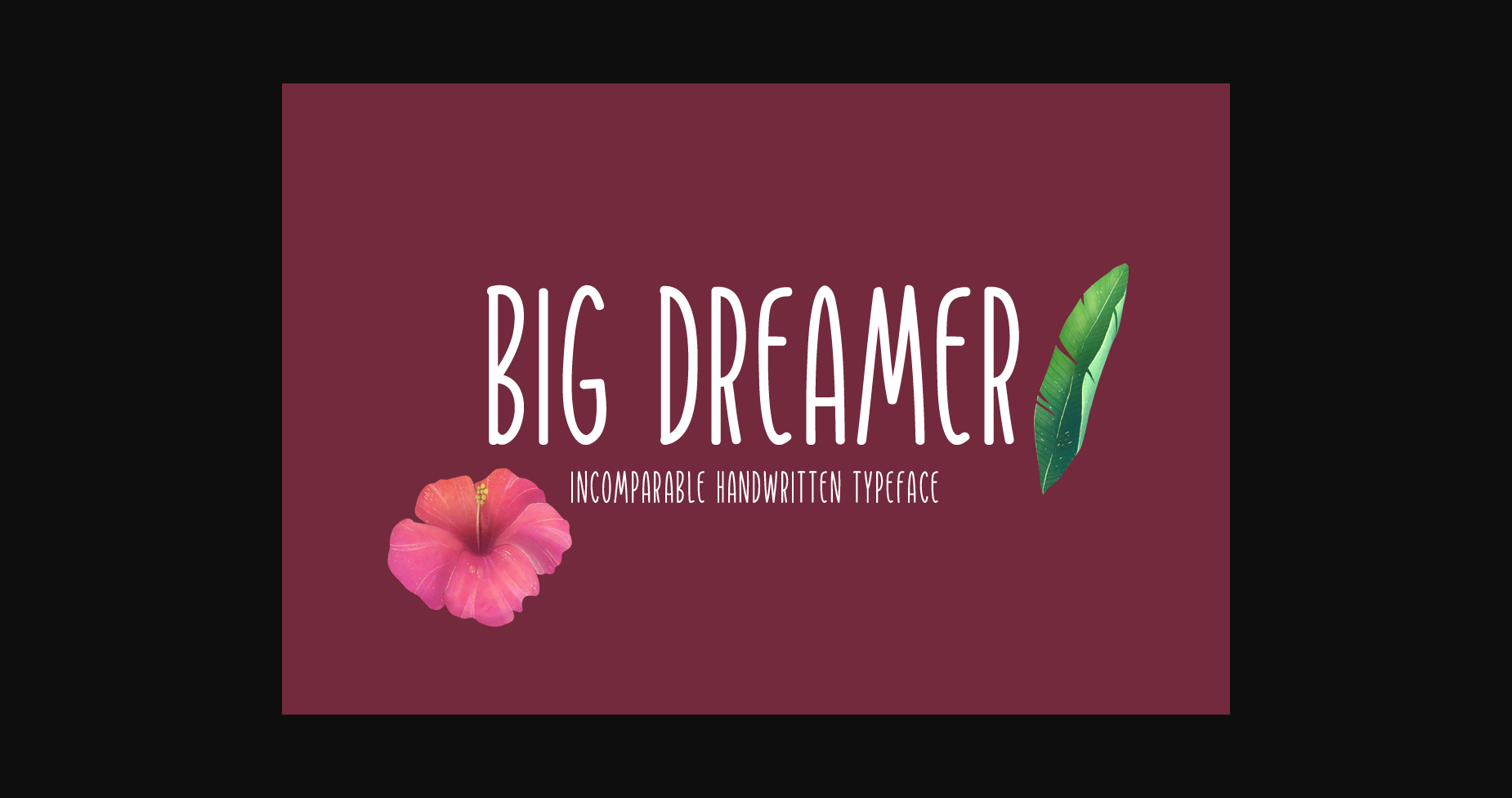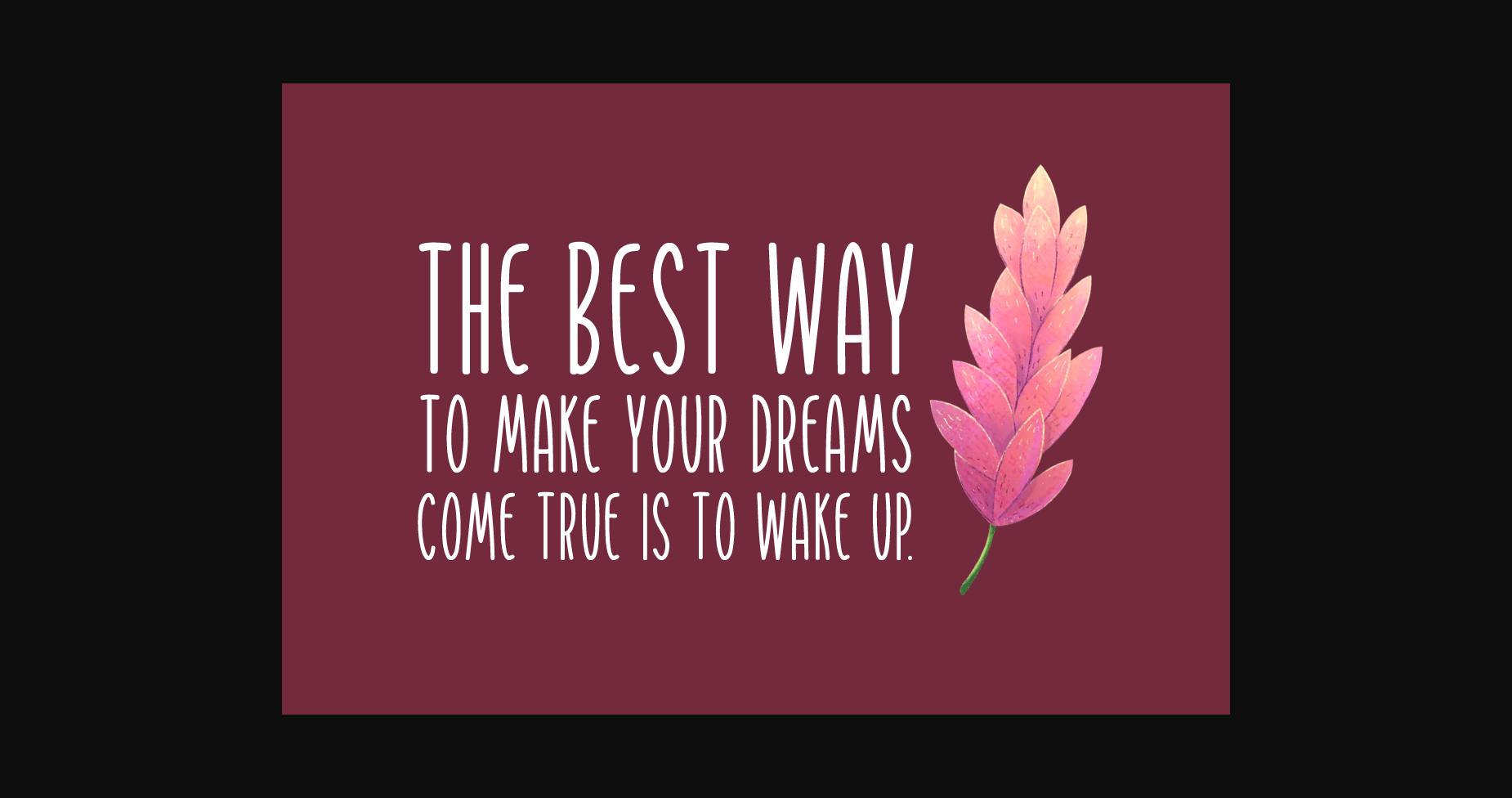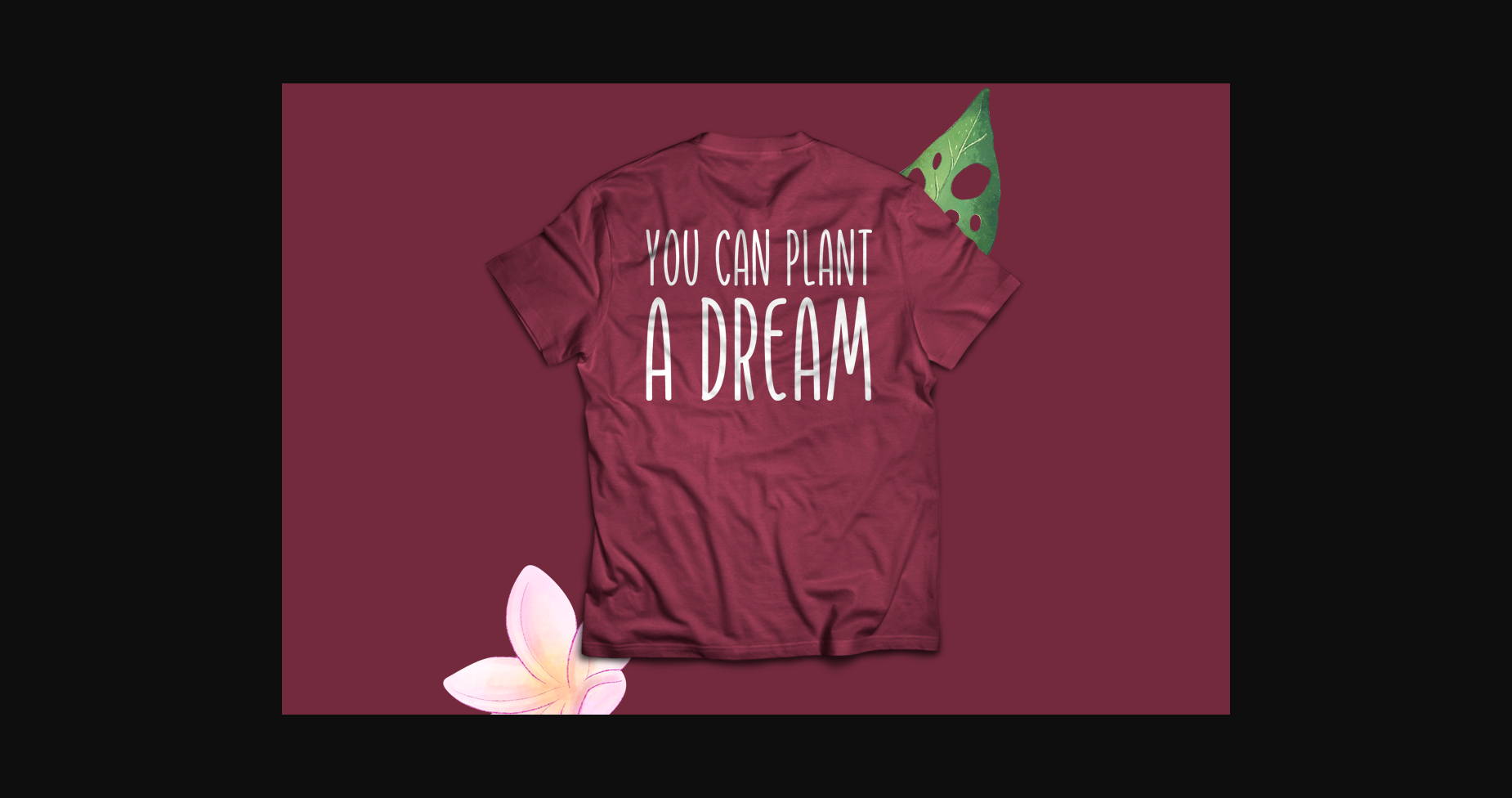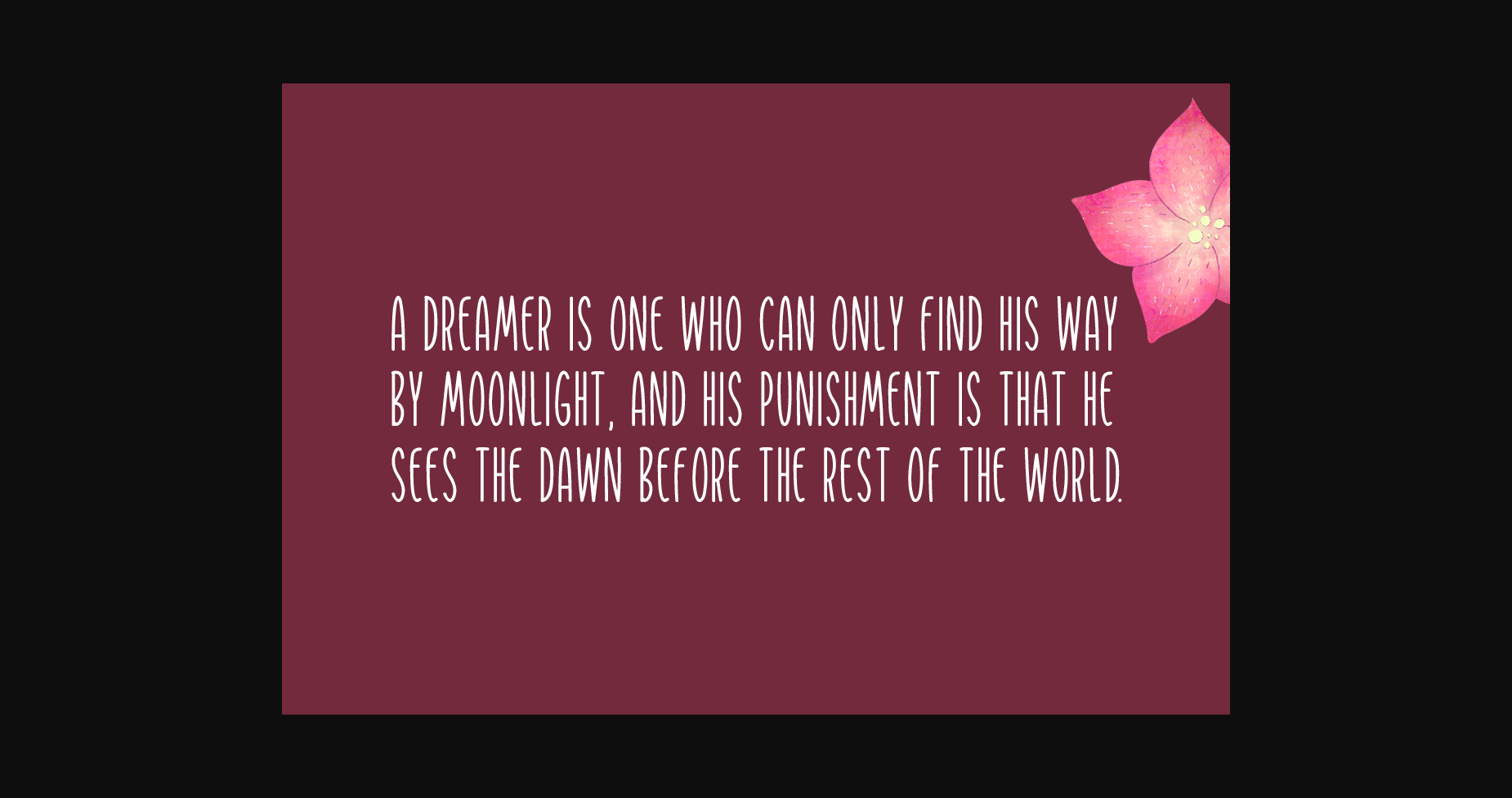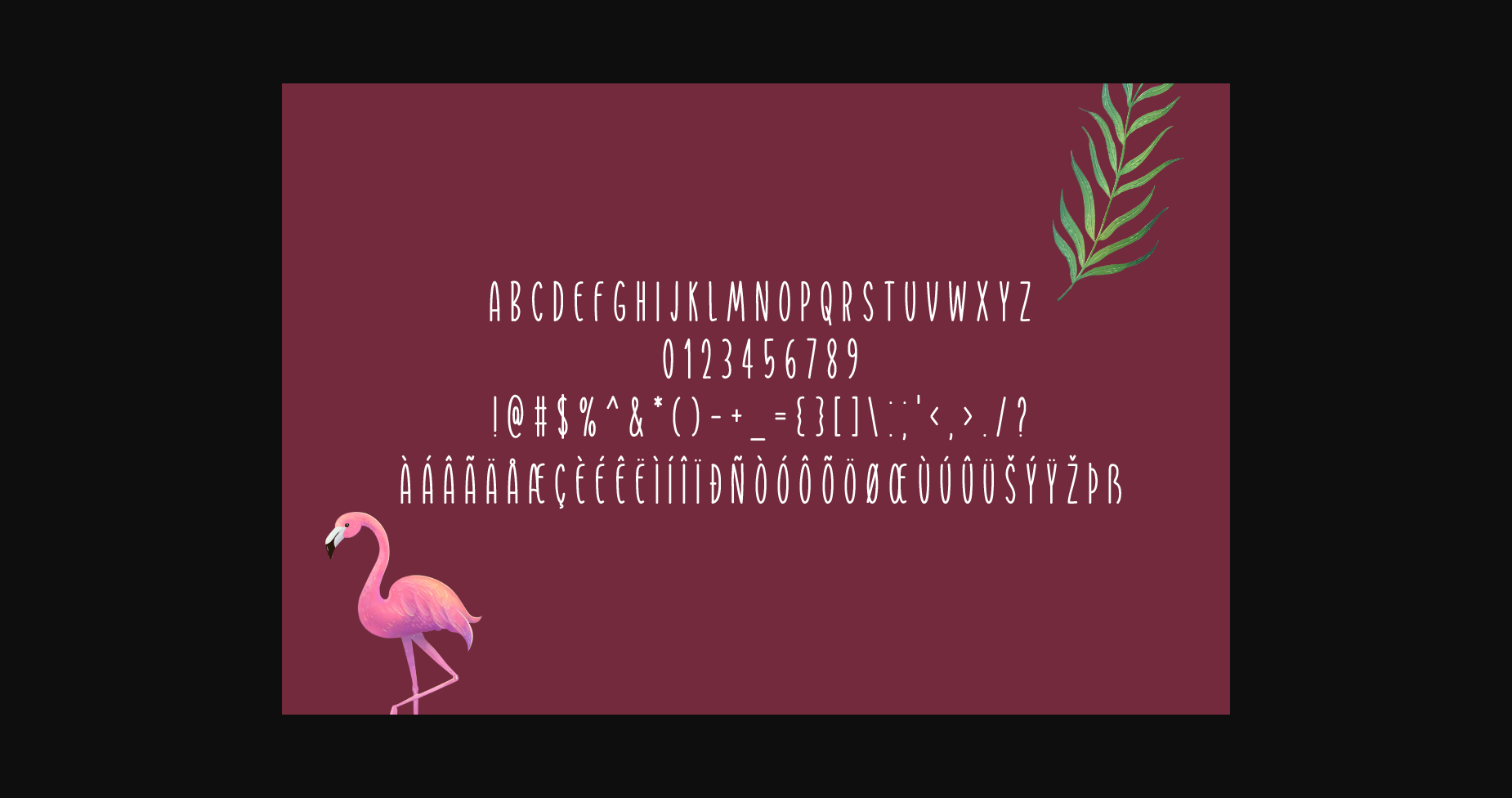
HomeSans Serif FontsBig Dreamer Font Sans Serif Fonts Big Dreamer Font FacebookXPinterestWhatsApp 1 of 7 ... Big Dreamer Font Poster 2... Big Dreamer Font Poster 3... Big Dreamer Font Poster 4... Big Dreamer Font Poster 5... Big Dreamer Font Poster 6... Big Dreamer Font Poster 7... About Big Dreamer Font Big Dreamer is a thin and tall sans serif font. It can easily be matched to an incredibly large set of projects, so add it to your creative ideas and notice how it makes them stand out! DOWNLOAD NOW People also explored Gamma Rays BB Gummies Font Roadney Adamsong Font Boho Font Nayla Font Rakitikar Font Walting Font Shofiyah Font Joyboy Font 382 0 TagsBig Dreamer Font Previous articleOvalime FontNext articleThe Chelasi Font LEAVE A REPLY Cancel reply Comment: Please enter your comment! Name:* Please enter your name here Email:* You have entered an incorrect email address! Please enter your email address here Website: Save my name, email, and website in this browser for the next time I comment. Personal Use Free Sarwendah Personal Use Free Read more about this font Vanchrome Personal Use Free Read more about this font Trio Personal Use Free Read more about this font Cosmos Personal Use Free Read more about this font BLOG 5 Fonts That Will Dominate Design Trends in 2026 5 Fonts for 2026 That Will Dominate Design Trends Typography plays a critical role in visual communication, and as we look ahead to 2026, it’s... Exploring Font Trends Elegant Wedding Invitation Fonts – Handwritten & Script Fonts Top 7 Google Fonts Alternatives for Faster and Privacy-Friendly Web Design (2025)